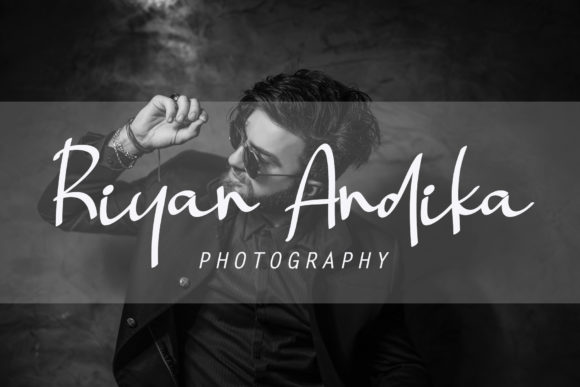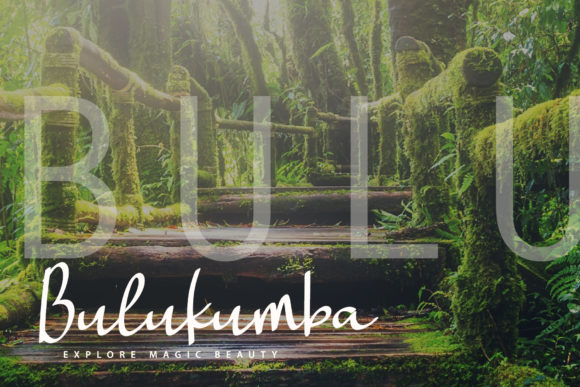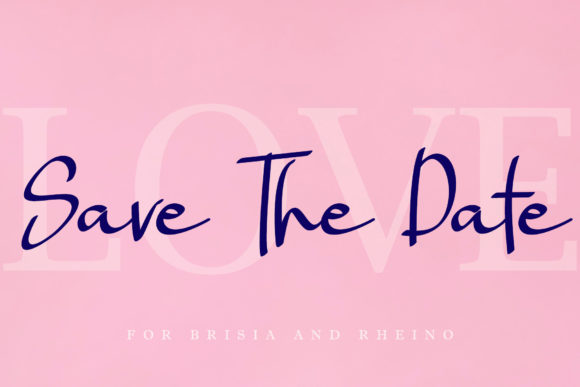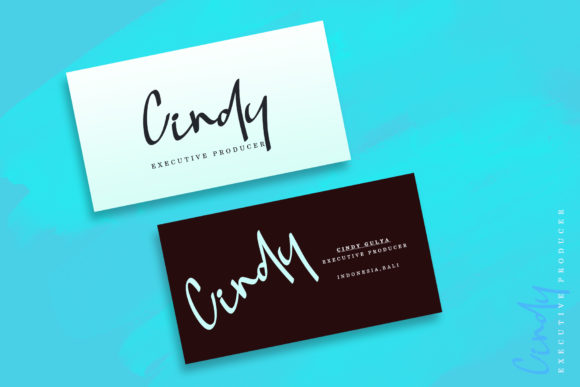
Landing Surely Font
The Landing Surely is a simple, yet classy handwritten font. It has an elegant, stylish look and is a great readability.
It’s a great choice for watermark on photography, signature or signature logo design, album covers, business cards, quotes, and many other design projects.